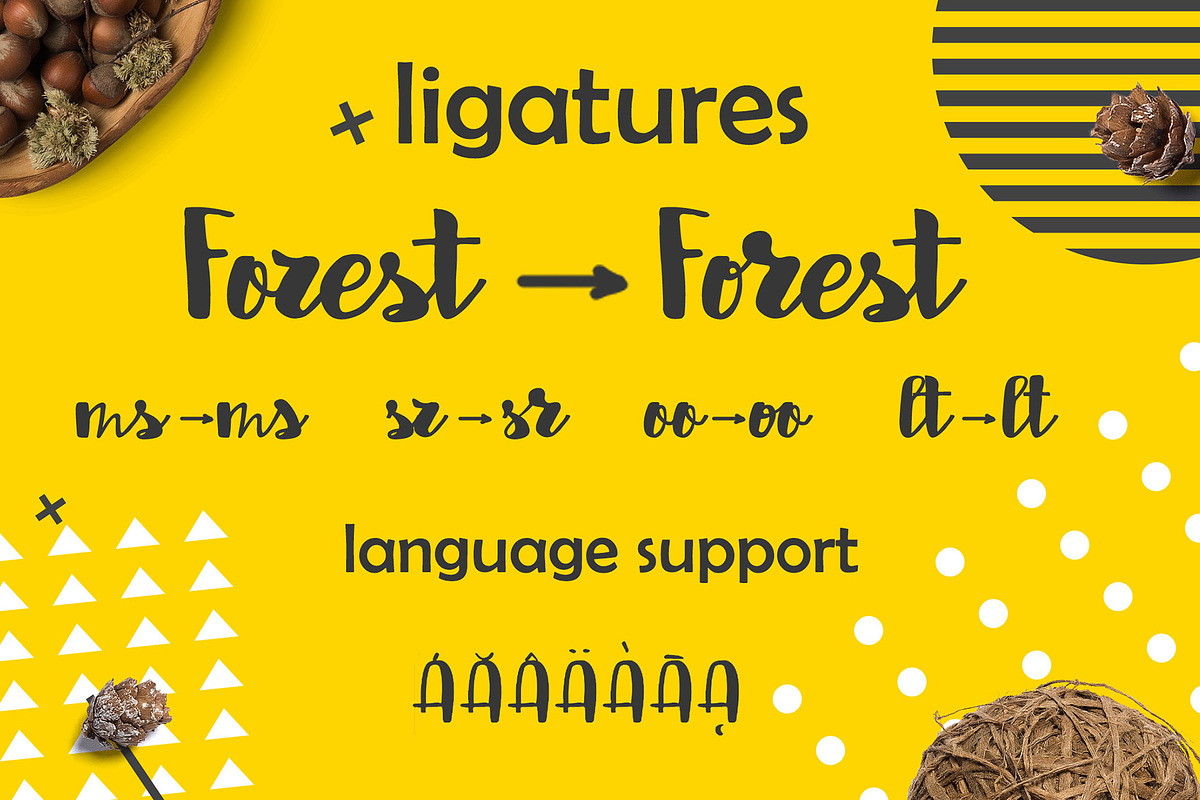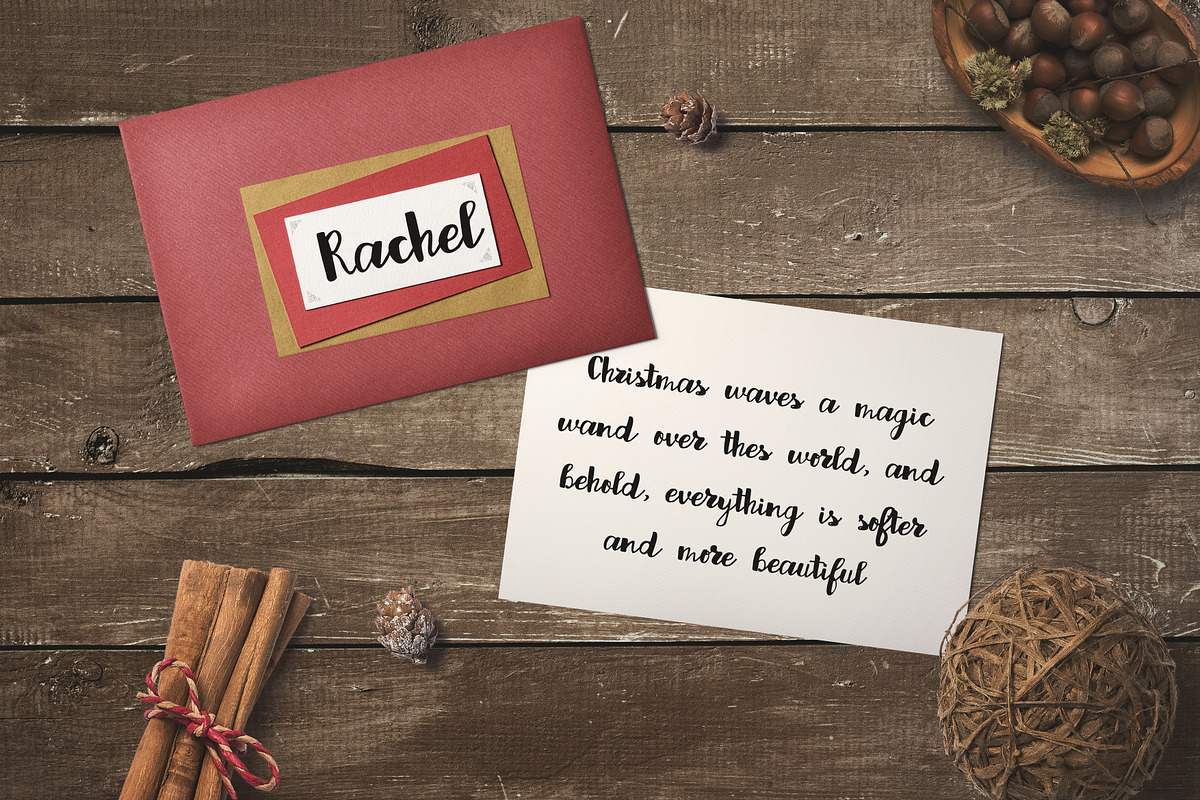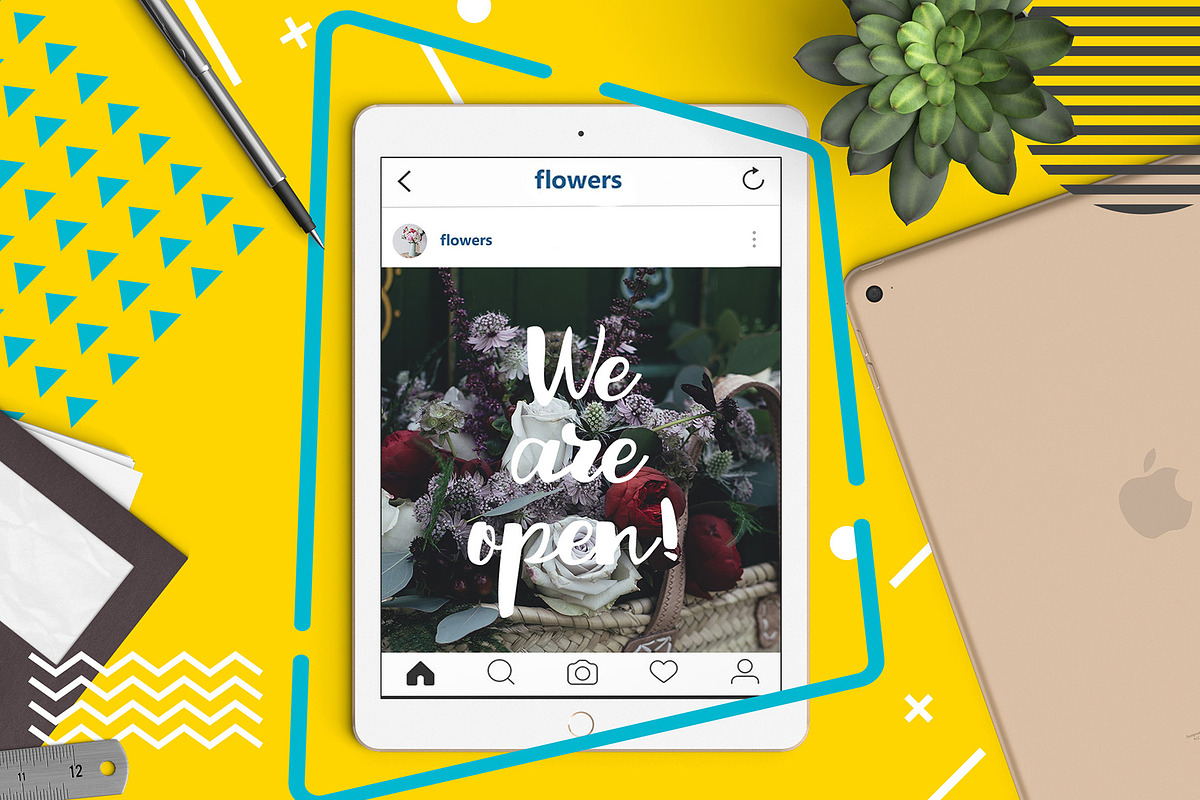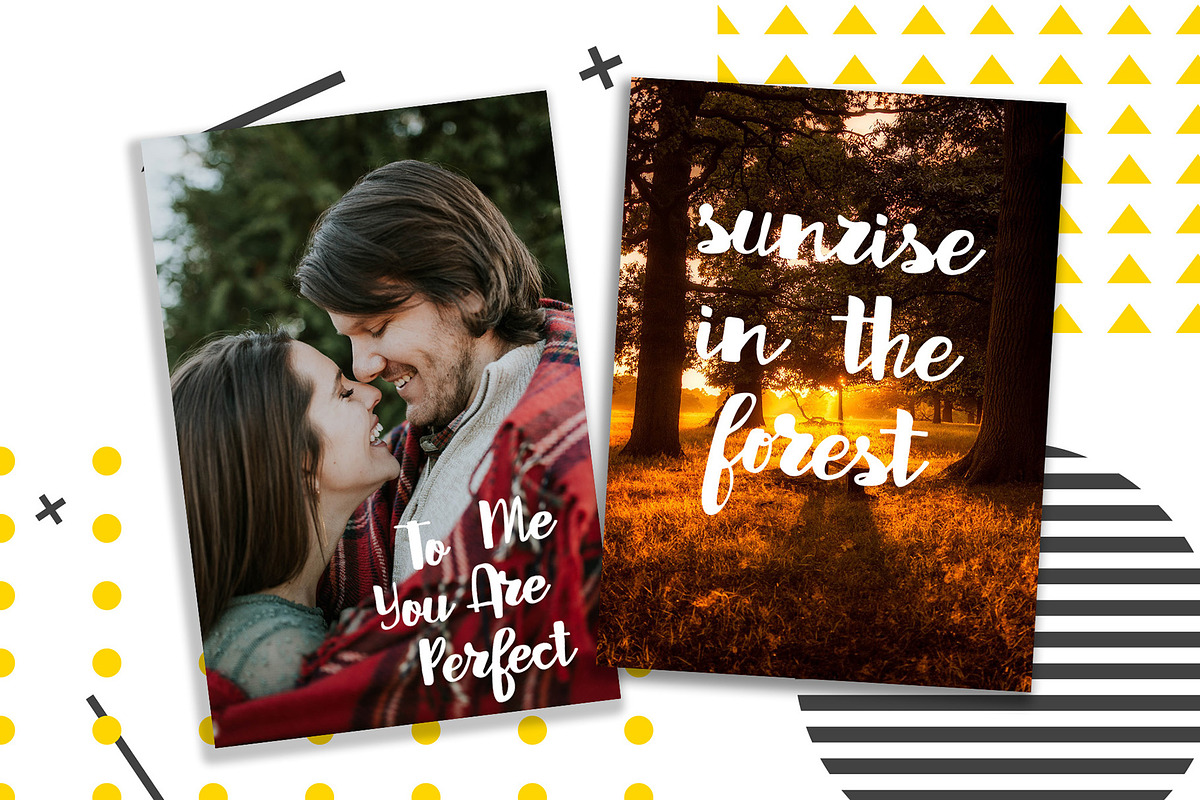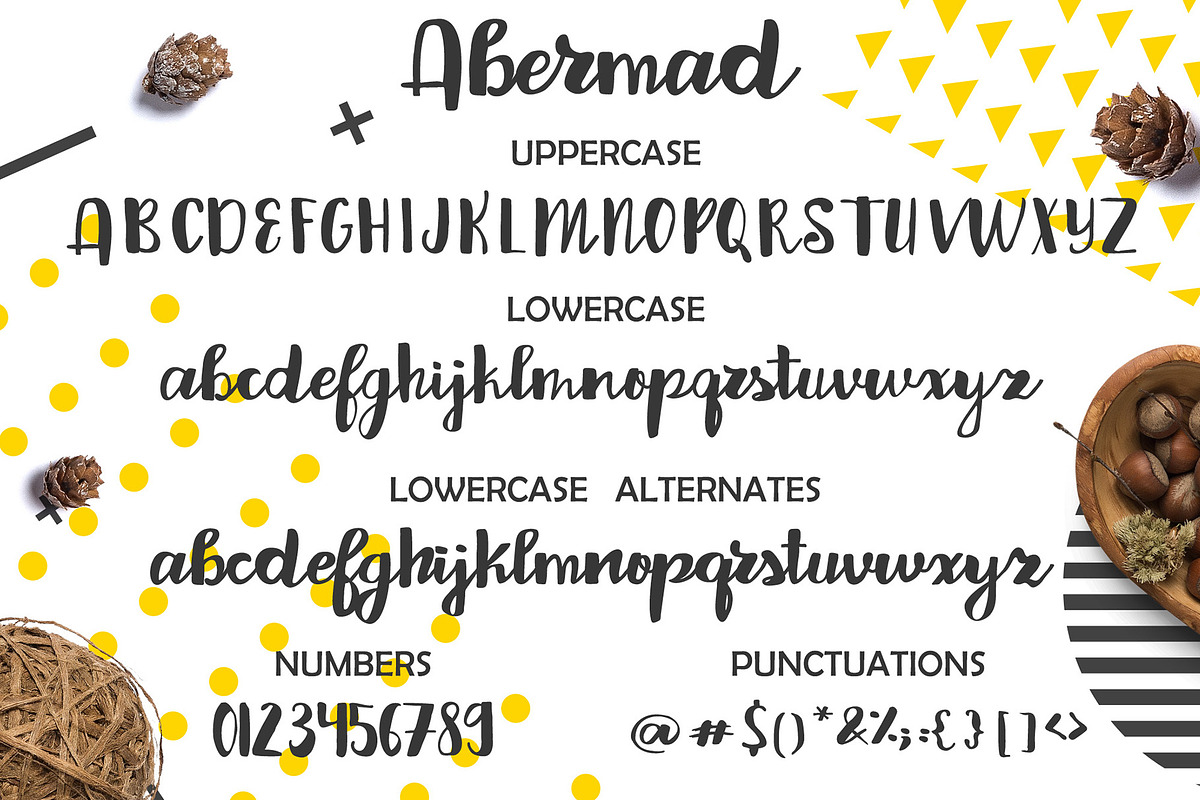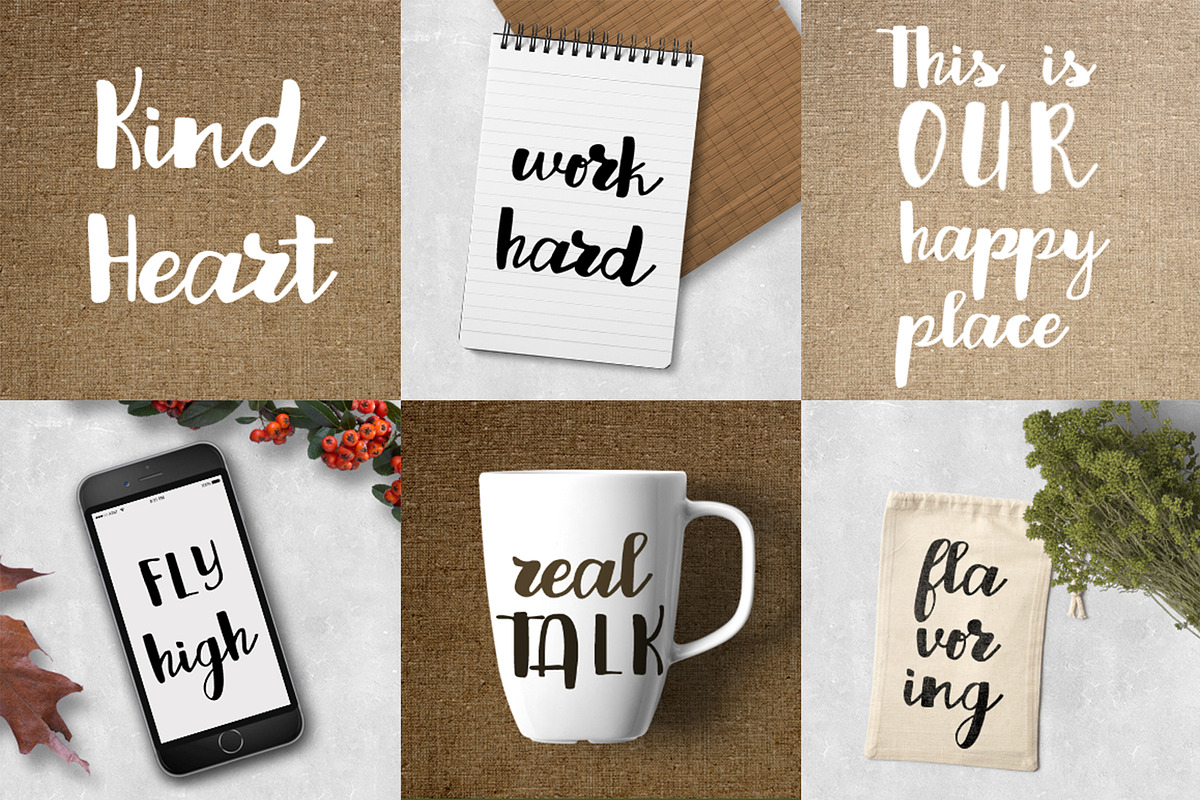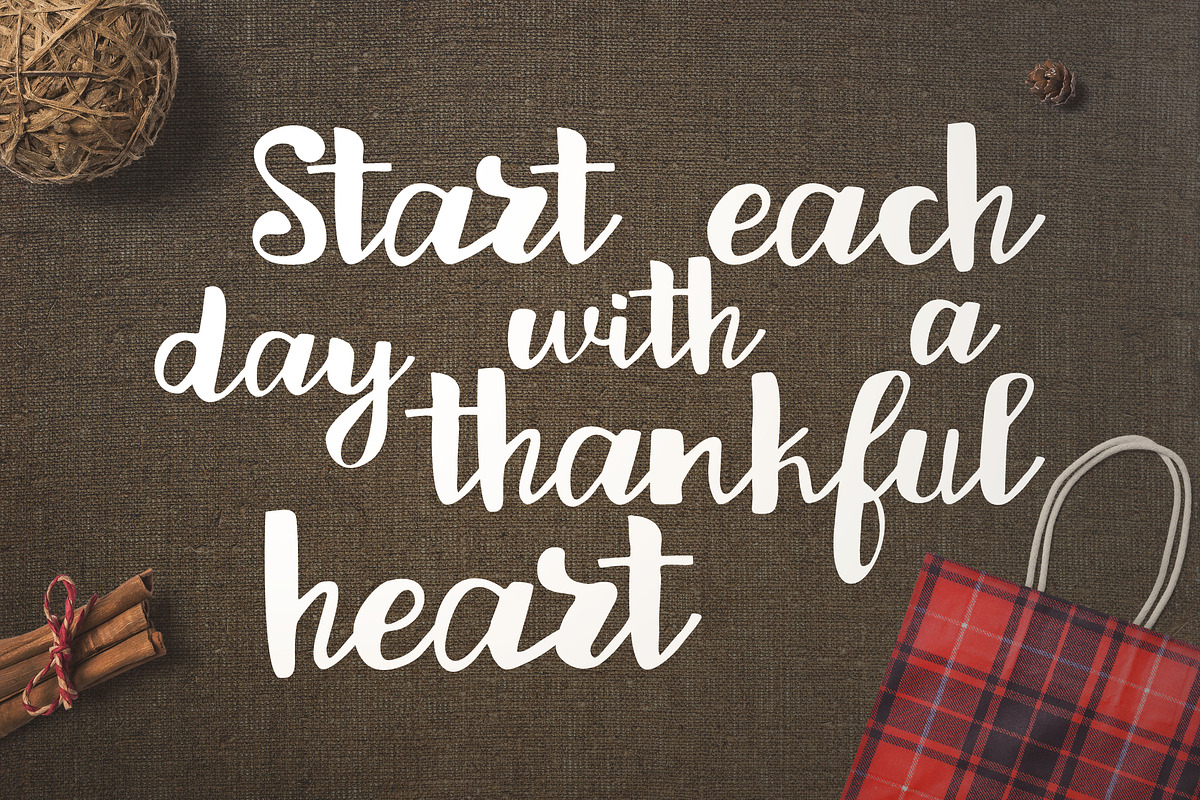
Abermad - brush font
I present to you an Abermad is a modern brush font.
This font has a large number of ligatures and an alternative set of symbols for lowercase, and some contextual alternatives (initial and final glyphs). These characters are accessible via software with a glyphs panel.
Simply Abermad makes custom lettering a dream thanks to all the little extra decorative options you can include for a pretty and unique customisation.
Fonts include multilingual support.
Perfect for greetings, branding, prints, invitations, and crafting, print, t-shirt design, to personalised logos, handwritten quotes and so much more!